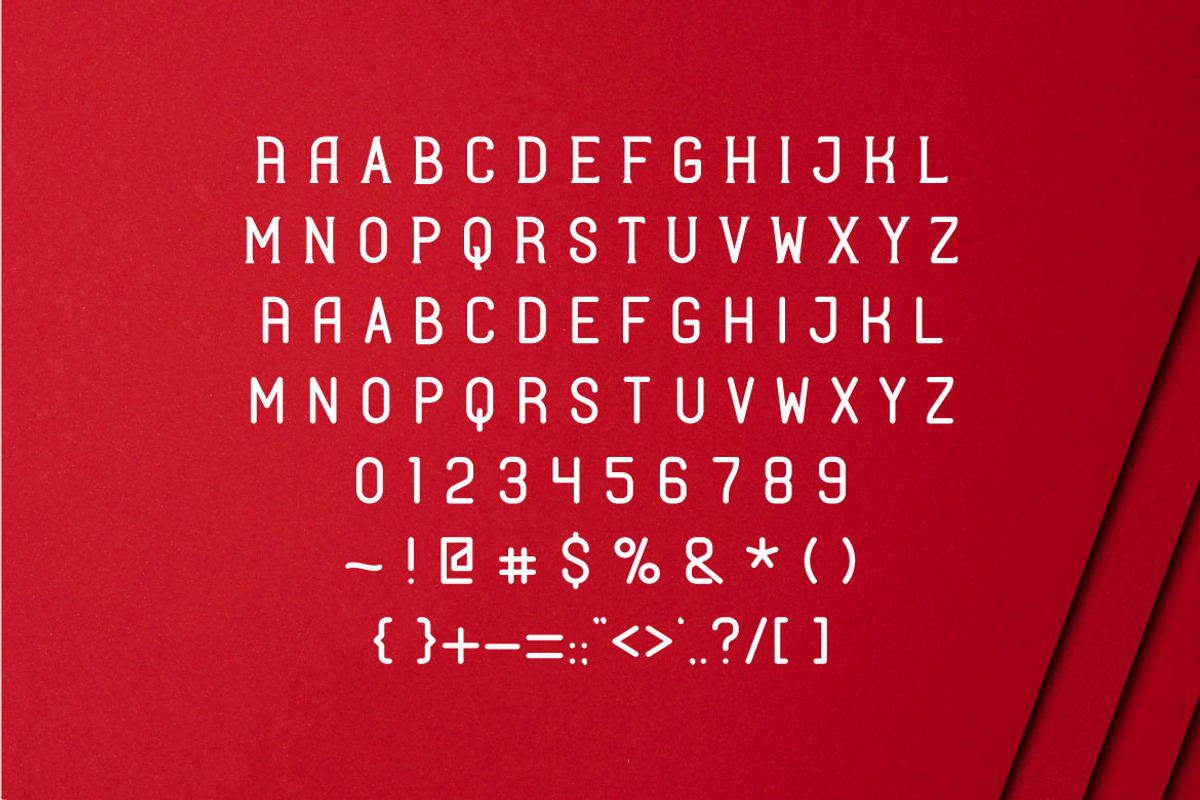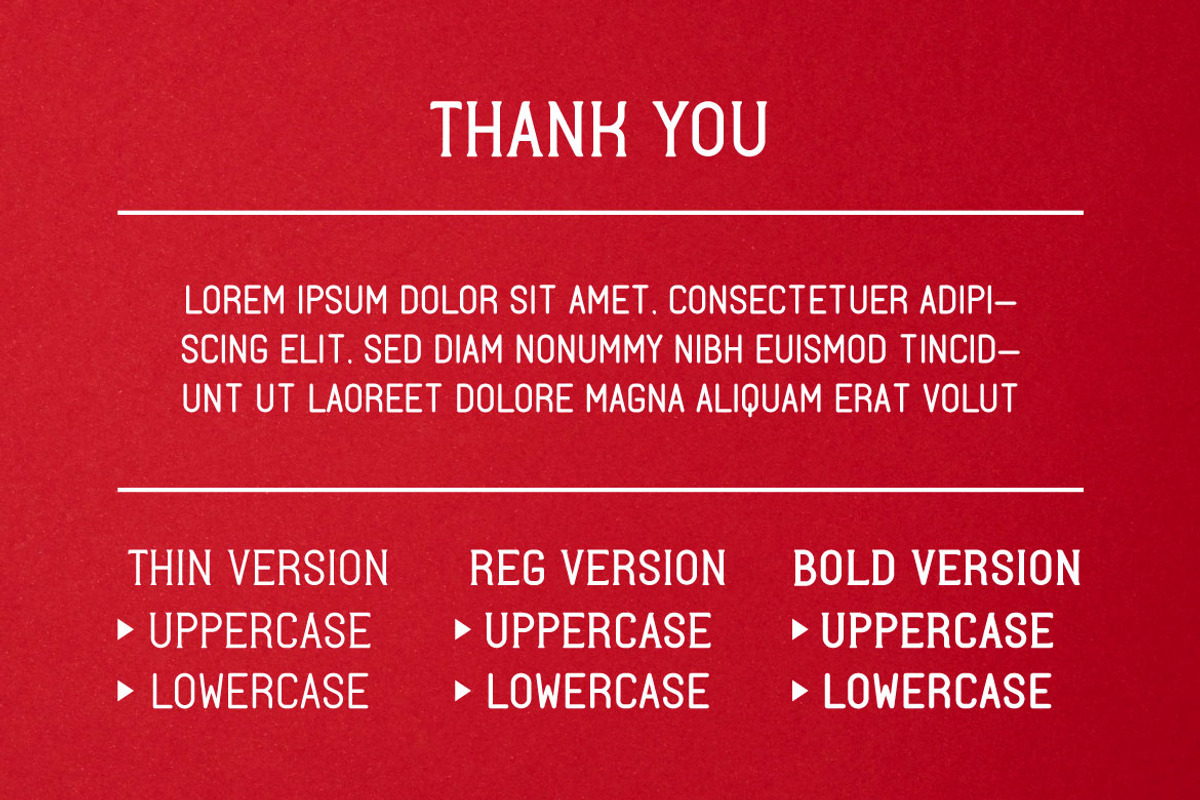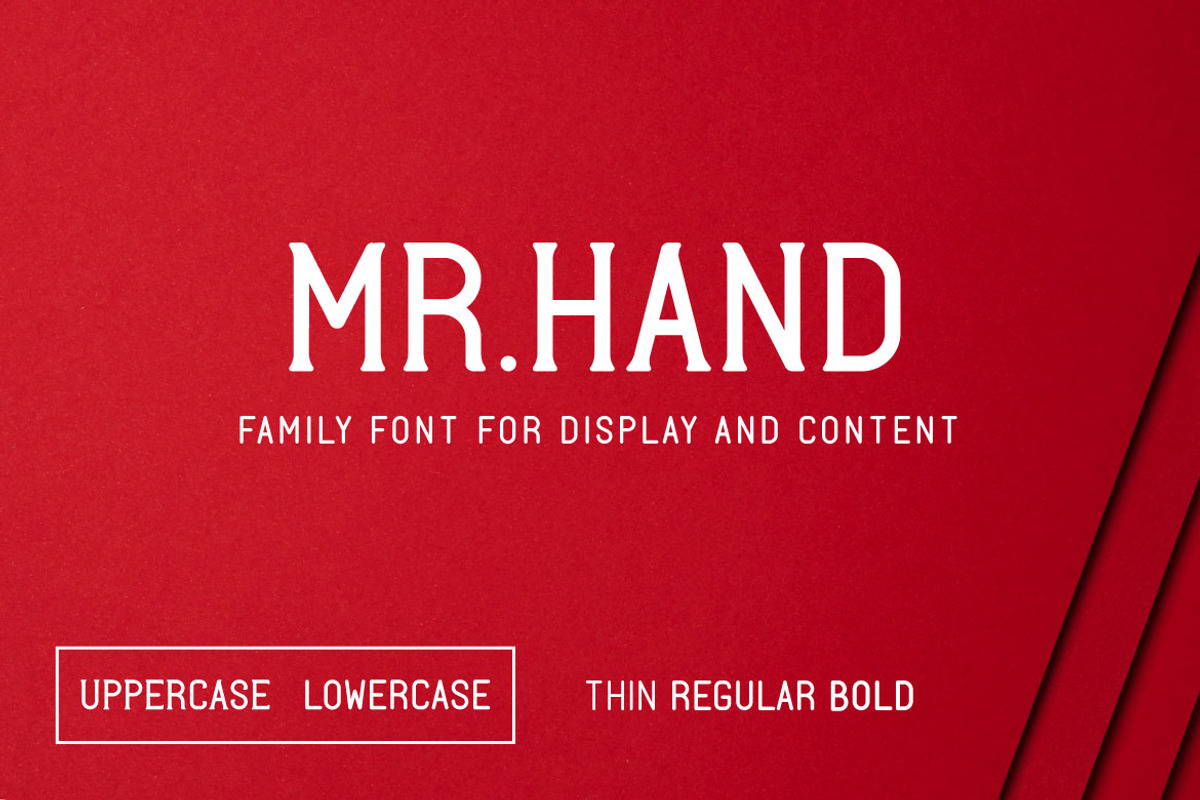
Mr.Hand - Display Family Font
If you are looking for a modern family font that good for display and content, meet Mr.Hand
Mr.Hand is perfect for any works, such as your poster, card, book title, headline of news, banner, flyer, stationery and many more. It also can be used in Any scale work.